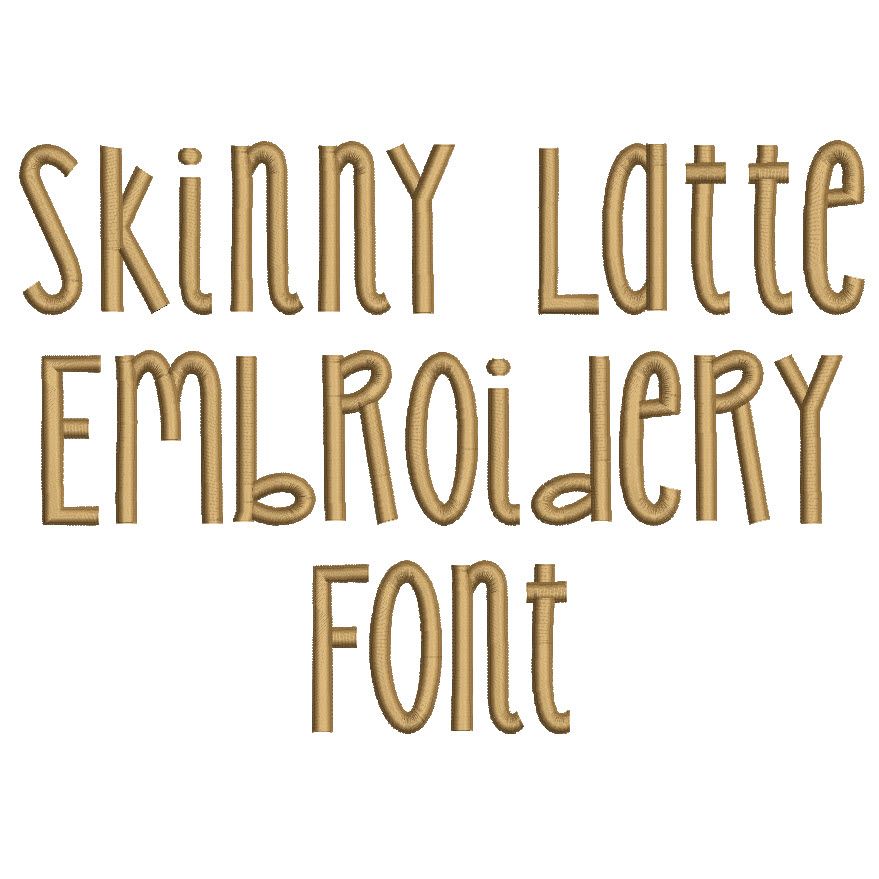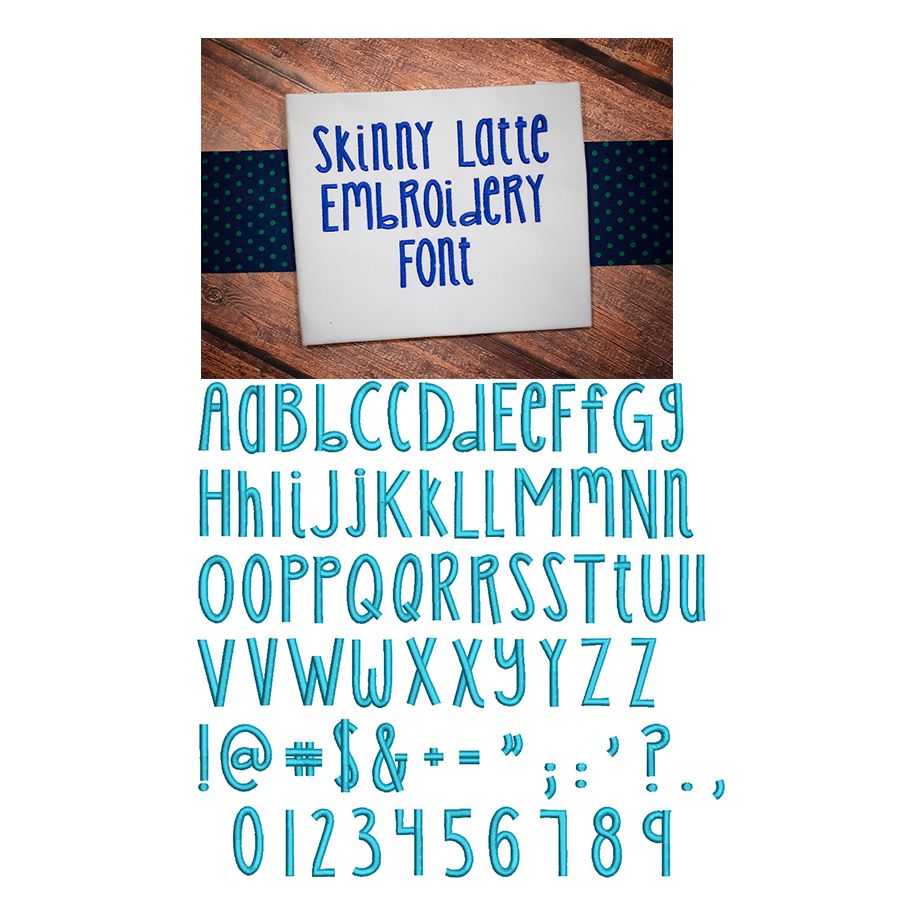
Skinny Latte Satin Stitch Embroidery Font
Adorable and quirky font great for children's projects!  All of our font alphabets are 100% manually digitized to bring you maximum stitch quality.